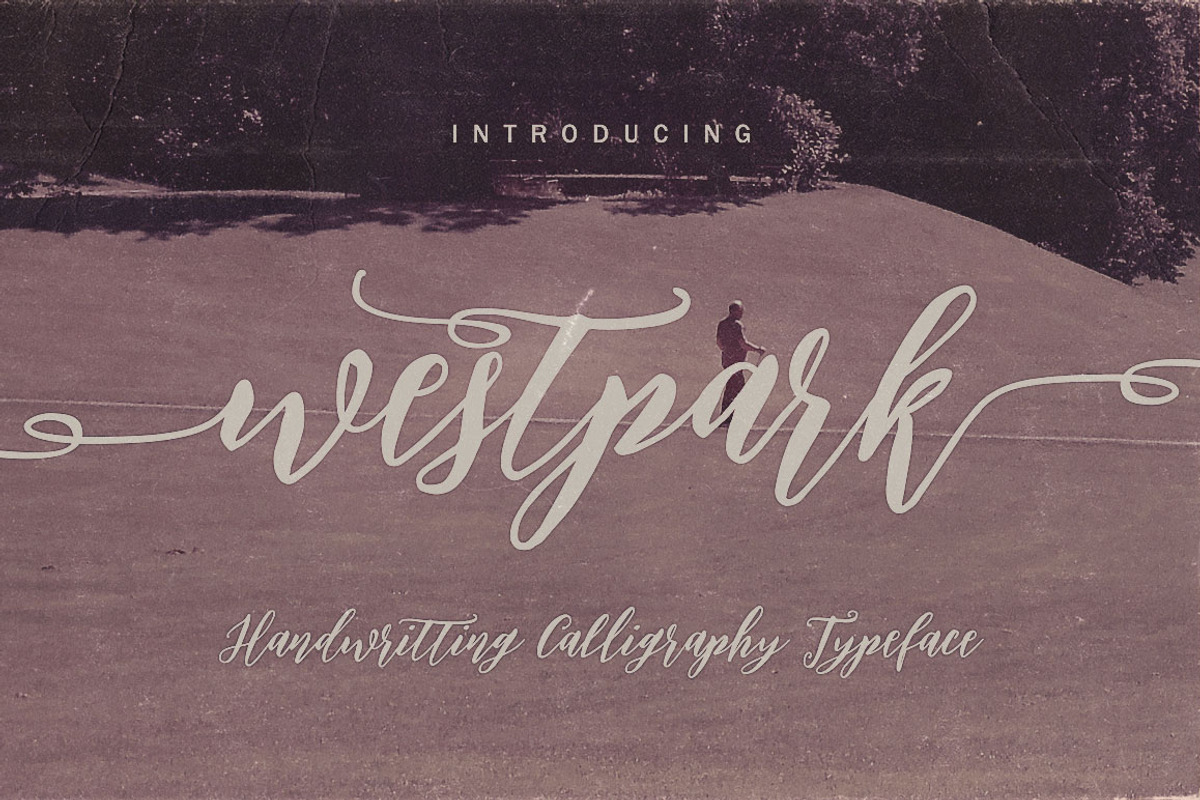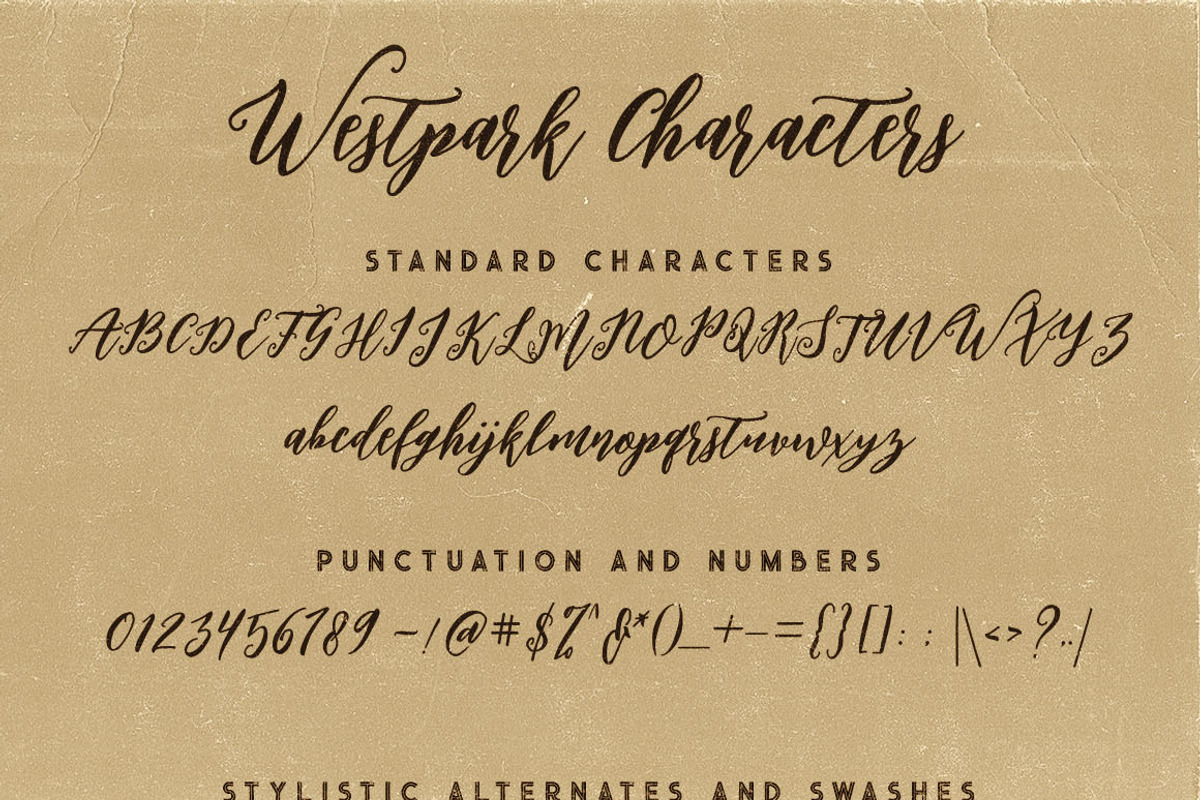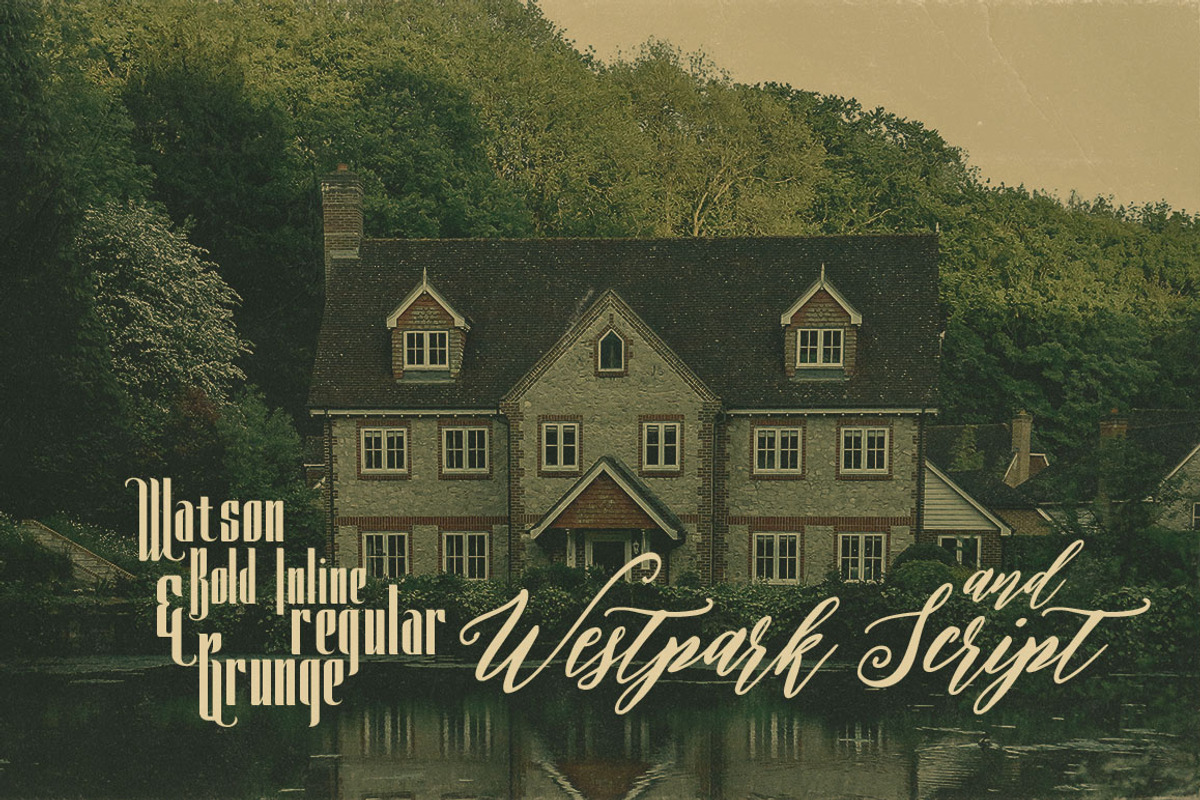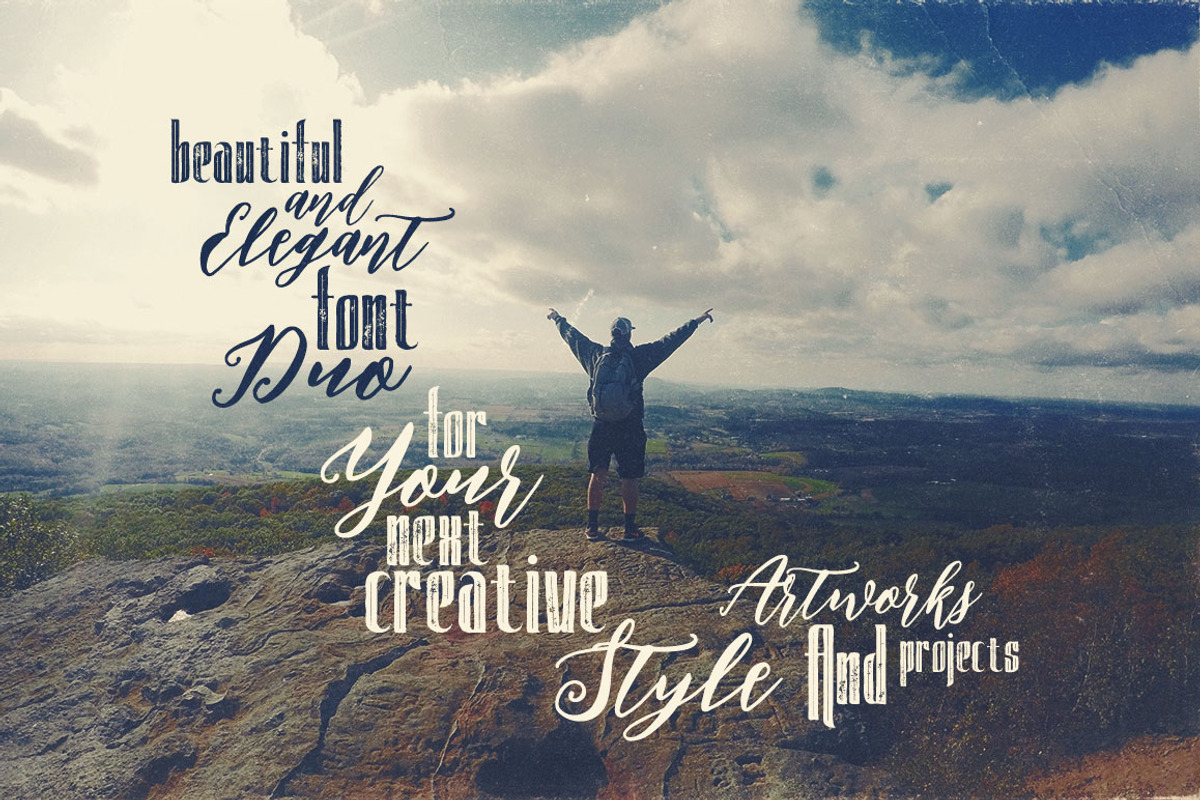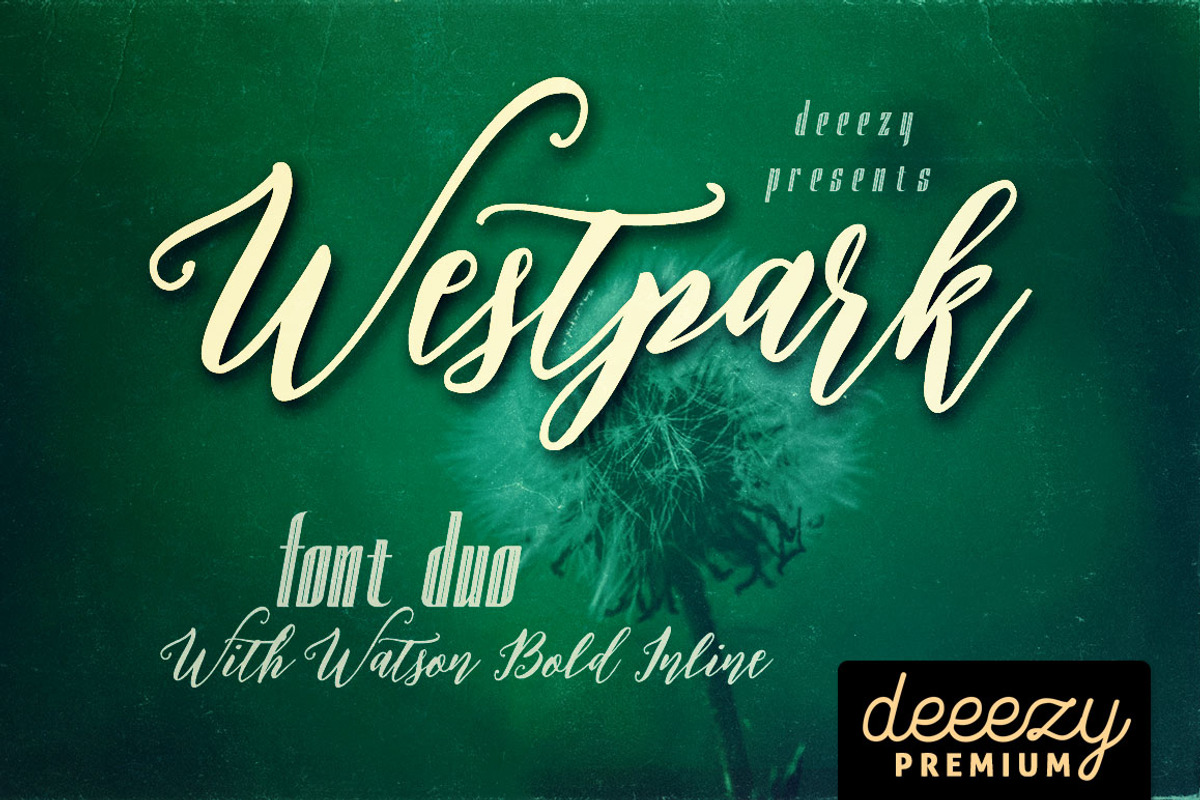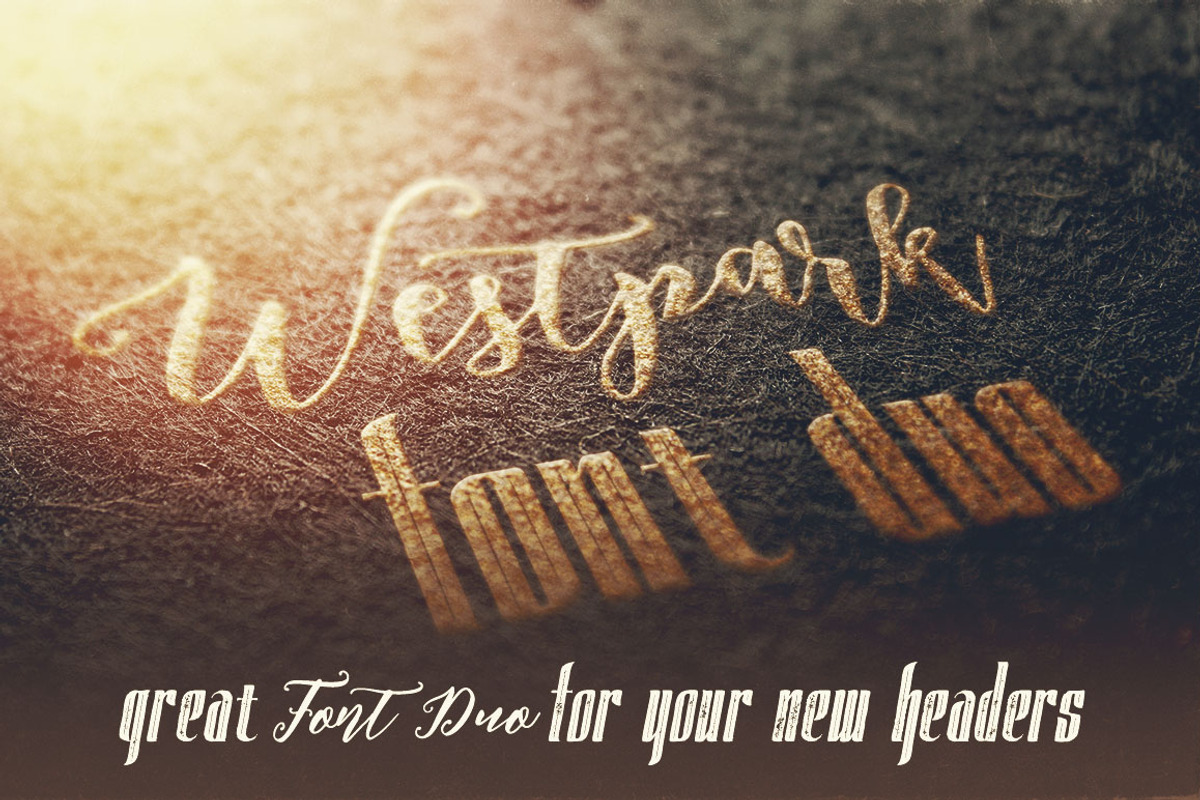
Westpark Script Font Duo
Cool and unique style font duo for your new projects. First font is handdrawn & modern brush style script font with multi language support and lot of stylistic alternates. Second font is inline & condensed sans serif display font with regular & grunge version (without multi language support).
- First font is handdrawn & modern brush style script font with multi language support and lot of stylistic alternates.
Westpark Script Font Duo by Deeezy fits naturally into Branding, posters, packaging, typography.